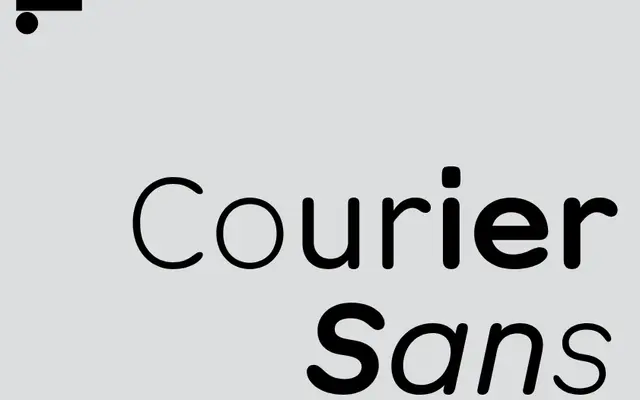
LL Courier Sans
Lineto · James Goggin · 2001
A proportional sans-serif grown from Courier by stripping away the serifs, originating as a student exercise at Ravensbourne in 1994 and refined into a full release in 2001.
James Goggin designed the first version during a 'Courier Only' typography exercise, circumventing the brief by removing every serif and correcting the spacing to proportional. The released family is now split into two branches: LL Courier Sans as a fully proportional version and LL Courier Sans Mono, drawn in 2019 to reconnect with the typewriter origins. The Light weight with italic gives it a deliberately understated, almost bureaucratic tone that suits academic and editorial contexts.
Derived from Courier by removing all serifs, then redrawn as a fully proportional sans-serif; its lineage is typewriter monospace but the released form is proportionally spaced.